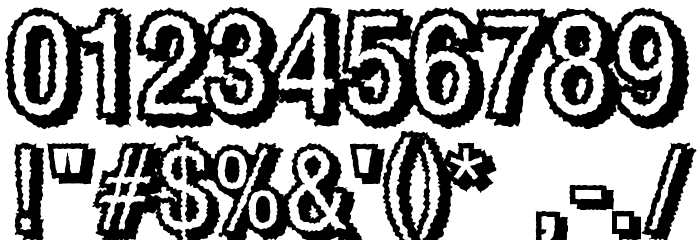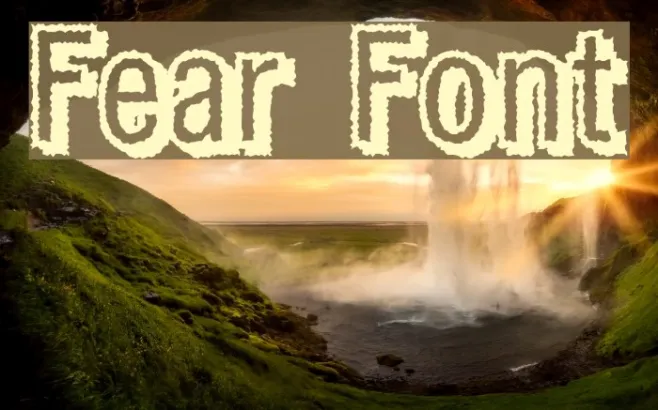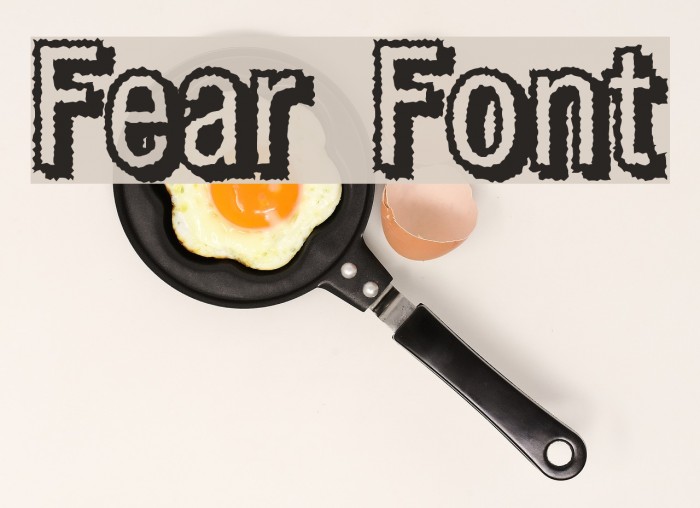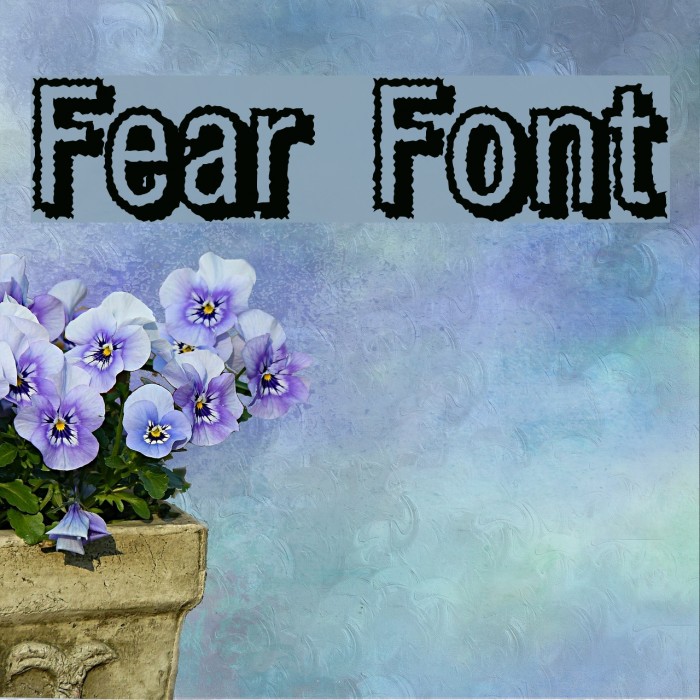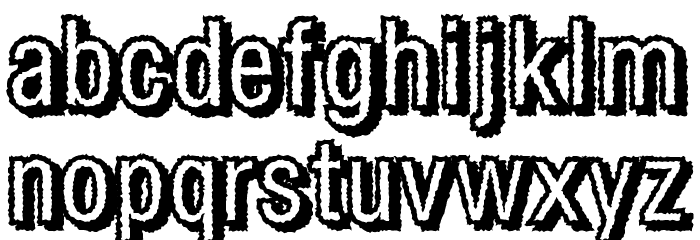
Fear Font
Fear Description
This font features a bold, distressed style with a rough, textured outline that gives it a rugged and edgy appearance. The uppercase and lowercase letters are consistent in their boldness, with a slightly irregular edge that adds a hand-drawn feel. The numerals and special characters maintain this distressed look, making the font suitable for designs that require a grunge or urban aesthetic. The overall style is eye-catching and impactful, perfect for making a statement.
| Proposed Projects | Ideal for posters, album covers, streetwear branding, and any project needing a bold, edgy look. |